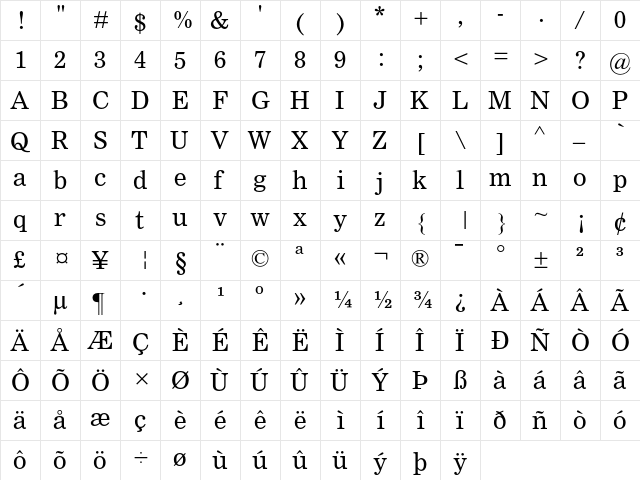
Nimrod MT Regular
Design Context for Nimrod MT Typeface
Nimrod MT takes a measured approach to typography — its balanced proportions and neutral character make it a reliable workhorse for both digital and print work.